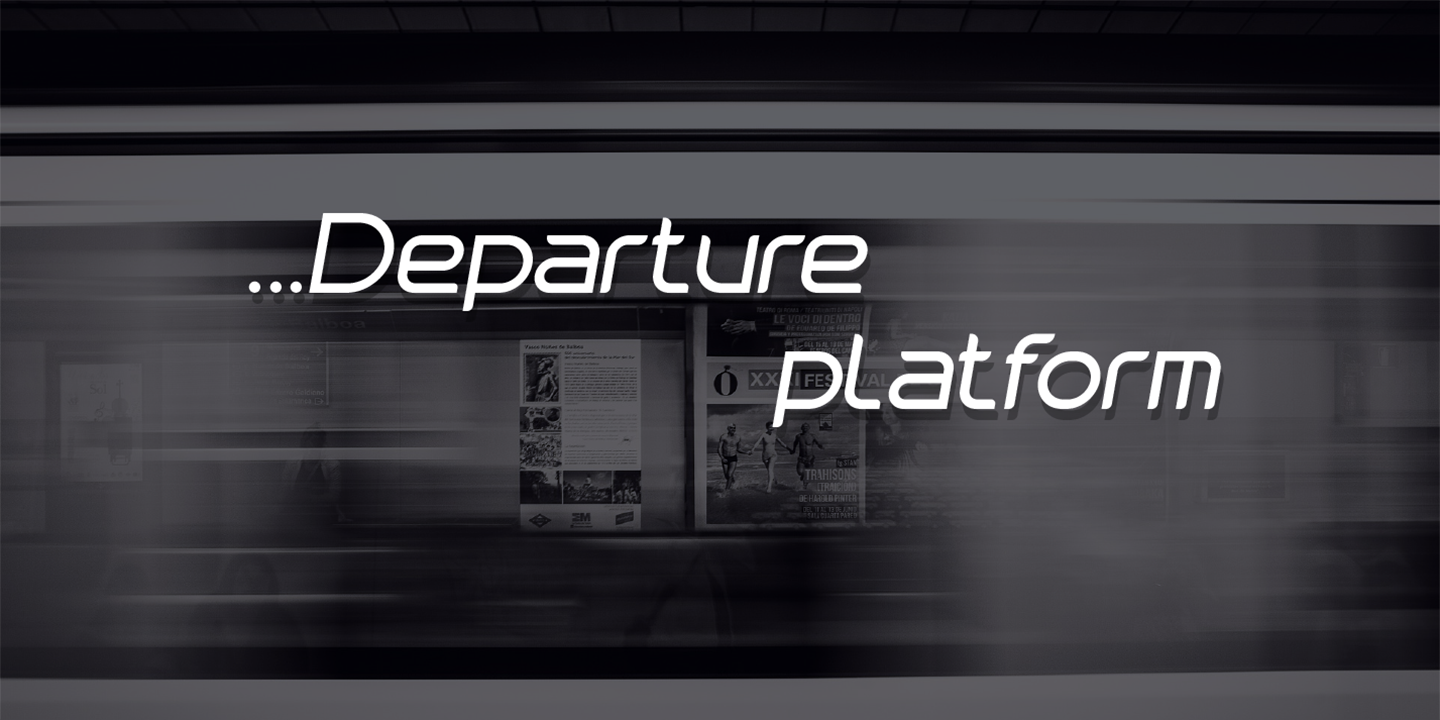
The Beginner Font is perfect for educational materials, children's learning apps, tutorial guides, simple branding projects, beginner-friendly websites, instructional posters, starter kit packaging, entry-level course materials, accessibility-focused designs, and clear communication graphics.
What makes the Beginner Font exciting is its exceptional clarity and approachable design that makes complex information instantly accessible to learners of all ages and skill levels. This thoughtfully crafted typeface features clean, simple letterforms with generous spacing and optimal proportions that reduce reading fatigue and enhance comprehension. Each character is designed with learning in mind, creating a welcoming environment that encourages engagement and builds confidence in new learners.
The Beginner Font family includes light, regular, medium, and bold weights, along with clear italic versions and comprehensive character sets that support educational applications and multilingual learning environments.
Whether you're developing educational content or creating user-friendly instructional materials, Beginner Font Free Download provides the perfect foundation for effective learning experiences. Its carefully optimized letterforms ensure maximum legibility while maintaining that essential approachable quality that puts learners at ease. The font's OpenType features include simplified alternates, educational symbols, and clear numeral systems that enhance instructional typography standards. Educational designers and learning specialists consistently choose this font for projects requiring optimal readability and learner-friendly aesthetics. The Beginner Font transforms complex information into accessible, engaging communication, making it an invaluable resource for any designer's educational typography toolkit.